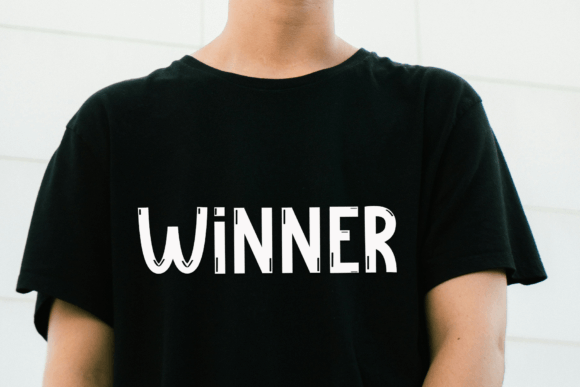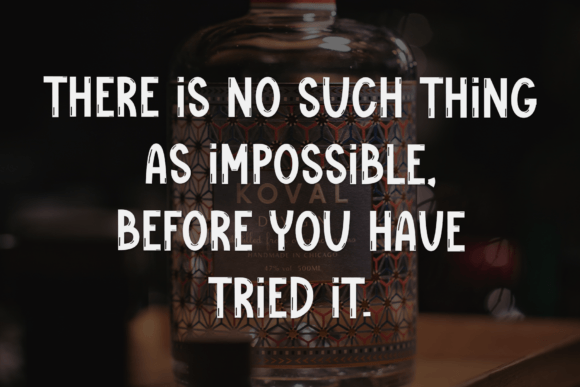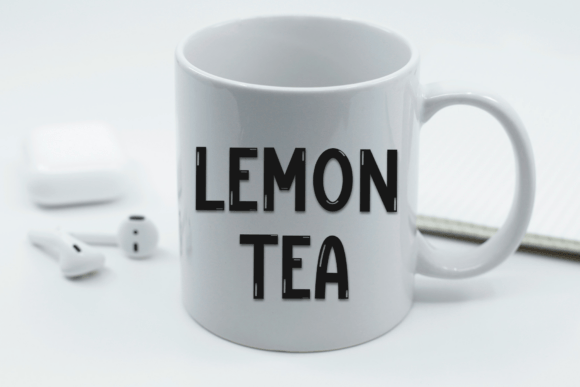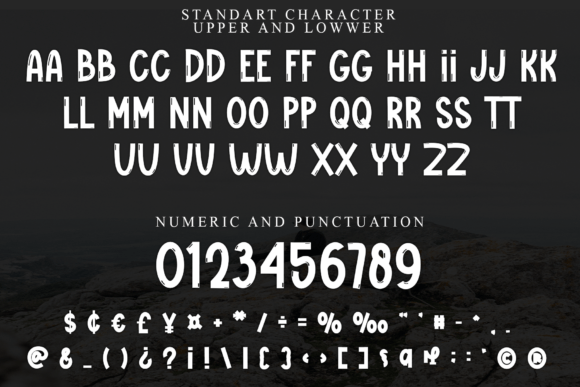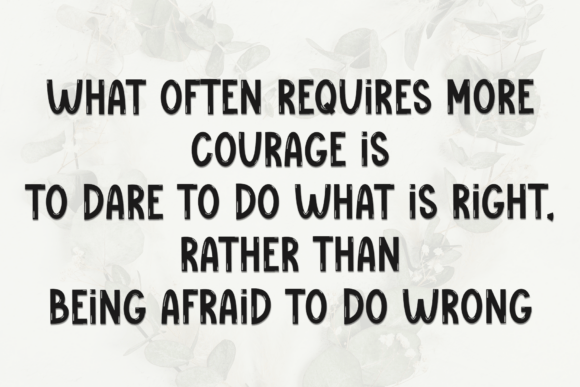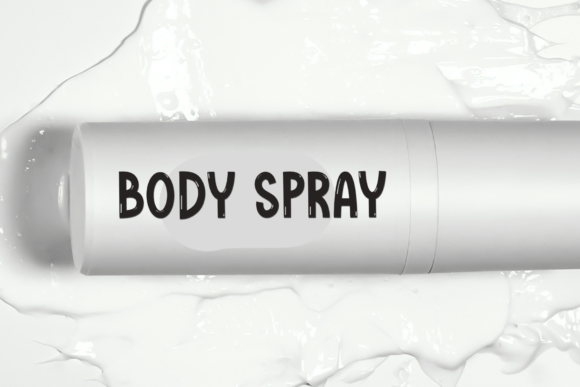
Introduction to Minute Time Font
As designers, we’ve all been there – staring at a blank canvas, struggling to bring our creative vision to life. But what if you had the perfect tool to make your project truly shine? That’s where Minute Time Font comes in – a stunning, modern display font that’s sure to make your designs stand out from the crowd.
With its bold, shiny letters and sleek finish, Minute Time Font is the perfect choice for attention-grabbing titles and headlines. Whether you’re working on a high-profile campaign or a personal creative project, this versatile font is sure to elevate your design and leave a lasting impression.
Key Features of Minute Time Font
- High-quality design resource for creative projects, perfect for modern and minimalist designs
- Unique, clean, and elegant font with a transparent background, ideal for layered designs
- Supports a wide range of languages, making it a versatile design resource for global projects
- Comes in a single weight, suitable for headings and titles in creative projects
- Designed with a high-resolution output in mind, ensuring crisp and clear text at any size
Honest Review: Minute Time Font
I recently had the chance to work with the Minute Time Font, and I must say it’s been a game-changer for my creative projects. The design resource is incredibly versatile, offering a range of stylish and modern styles that are perfect for anything from posters to branding materials.
One of the standout features of this font is its high quality. It’s clear that the designers behind it have put a lot of thought into creating a product that’s both aesthetically pleasing and functional. Whether you’re looking for a clean and minimalist look or something more elaborate and eye-catching, Minute Time Font has got you covered.
- ✨ High quality, resulting in crisp and clear text
- ⚠️ Limited character set, which can be restrictive for longer texts
- ⚠️ Not suitable for smaller font sizes, as the text can become blurry
Overall, I’m really impressed with the Minute Time Font. While it may have some limitations, its high quality and versatility make it a valuable addition to any designer’s toolkit. I’d definitely recommend it to anyone looking for a reliable and stylish design resource.
Minute Time Font
Tips for Getting the Most Out of Minute Time Font
To get the most out of the Minute Time Font, use it in combination with other design elements, such as images and graphics. Experiment with different font sizes and styles to create a visually appealing design. You can also use the font in conjunction with other design resources, such as templates and graphics.
Common Use Cases for Minute Time Font
The Minute Time Font is suitable for a variety of creative projects, including blog posts, social media graphics, and marketing materials. It’s also a great choice for designers looking for a high-quality, versatile font that can be used in a range of design contexts.